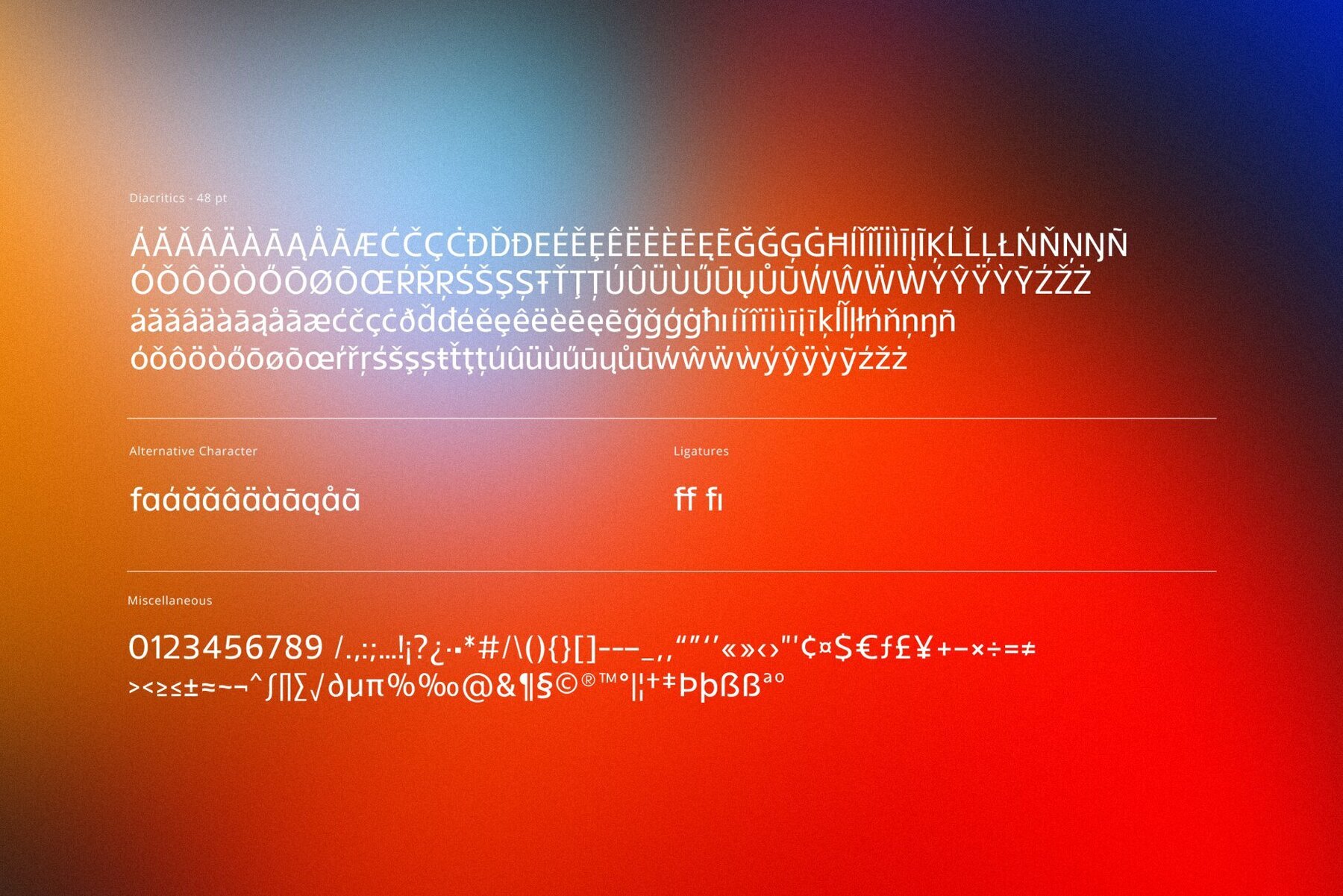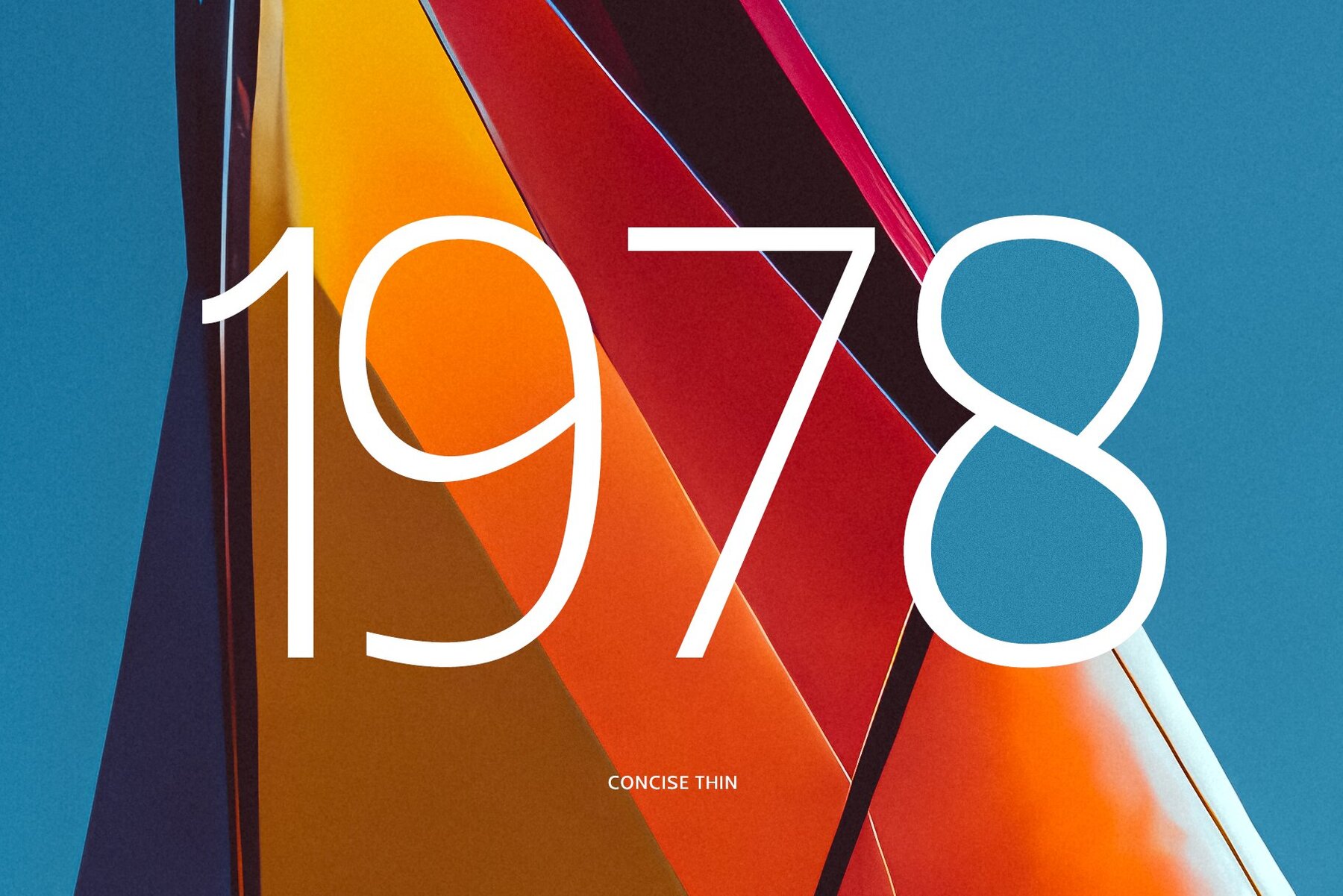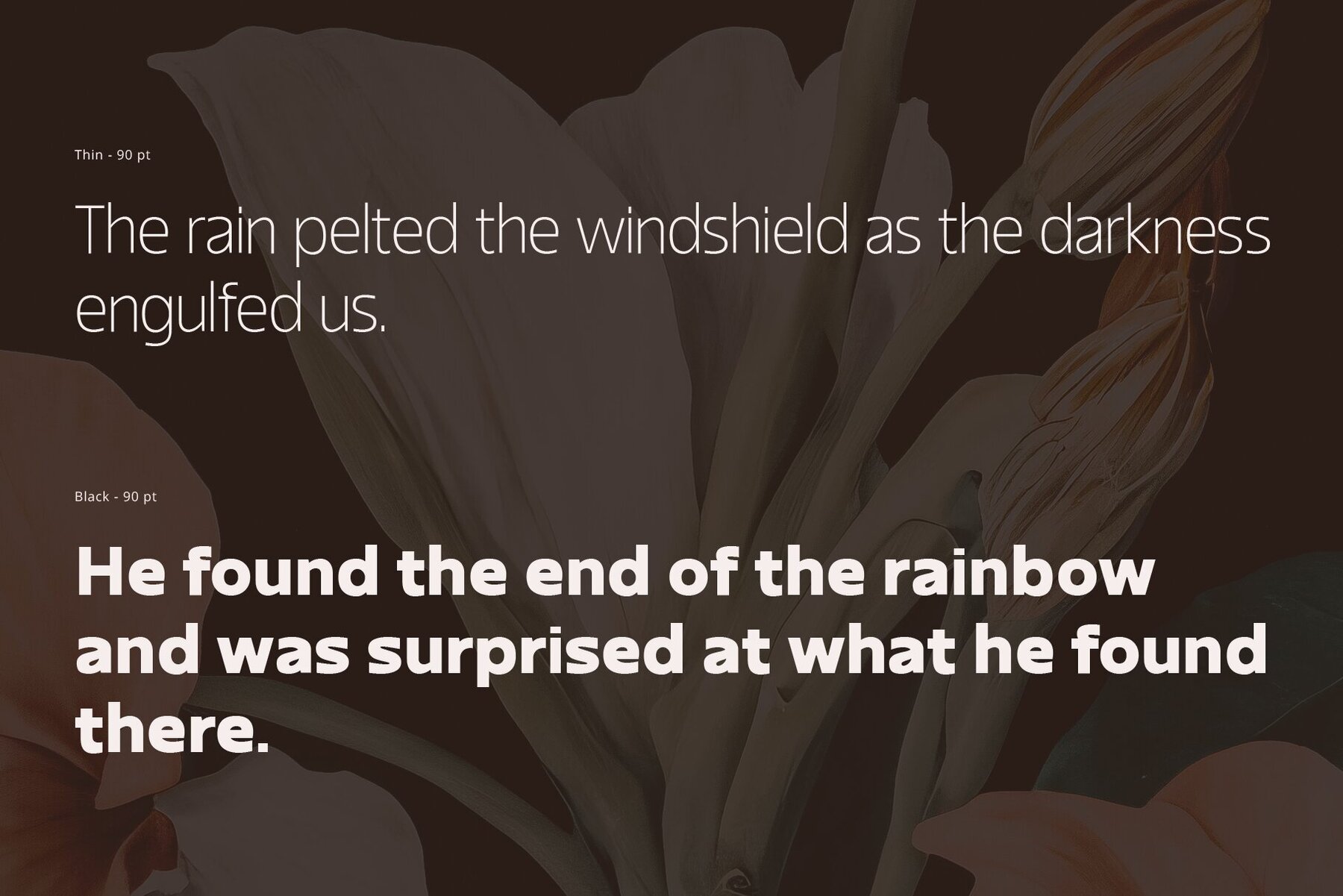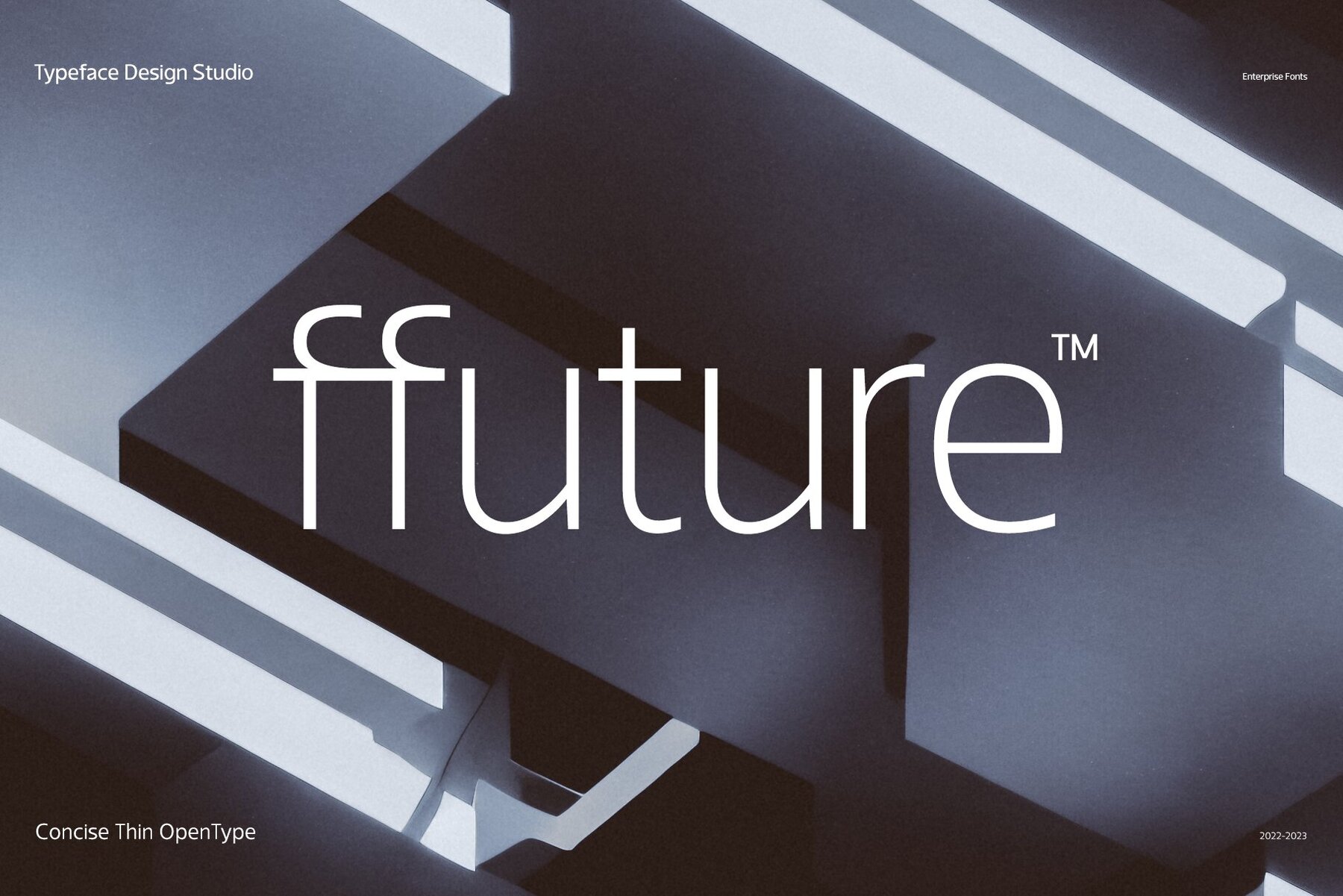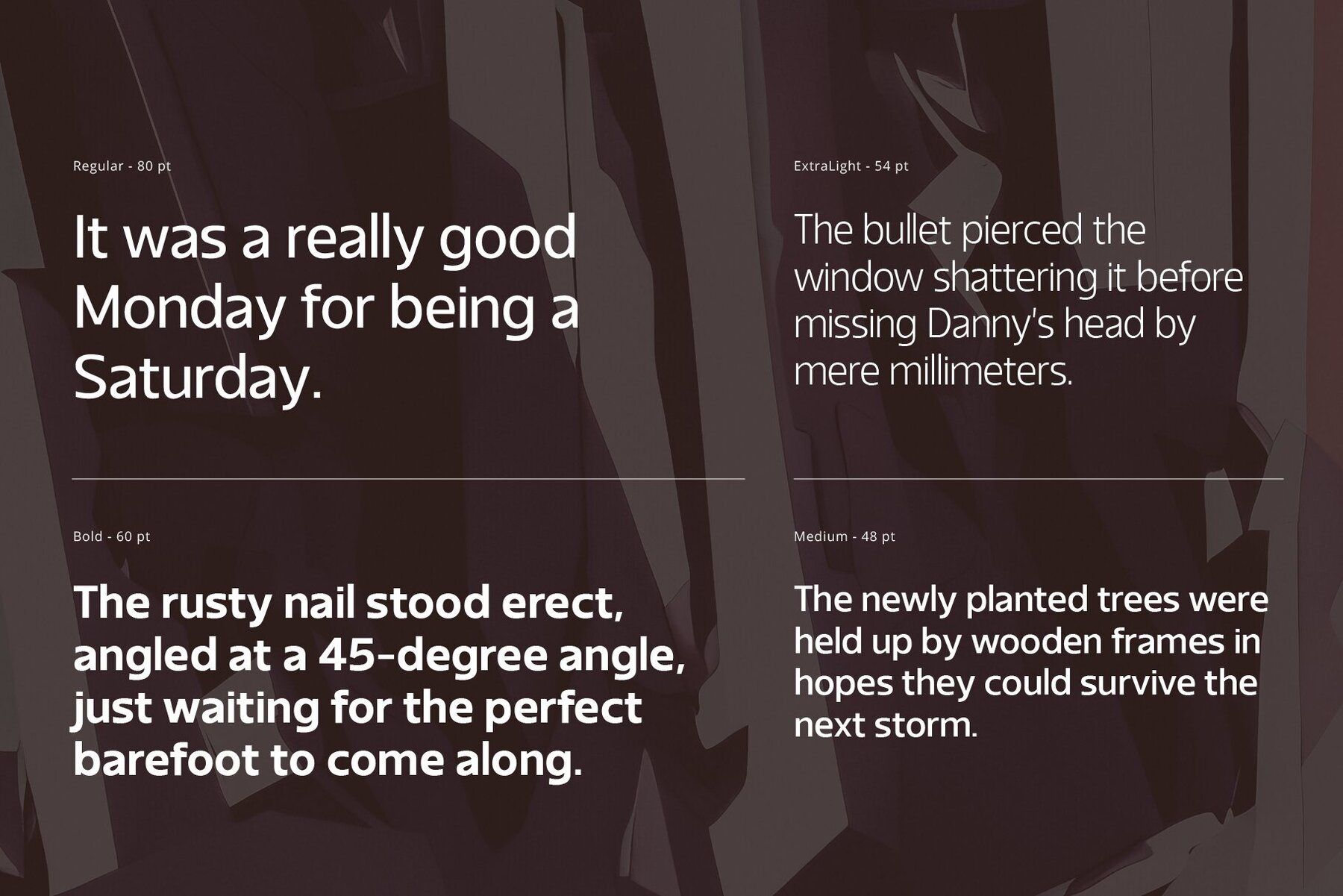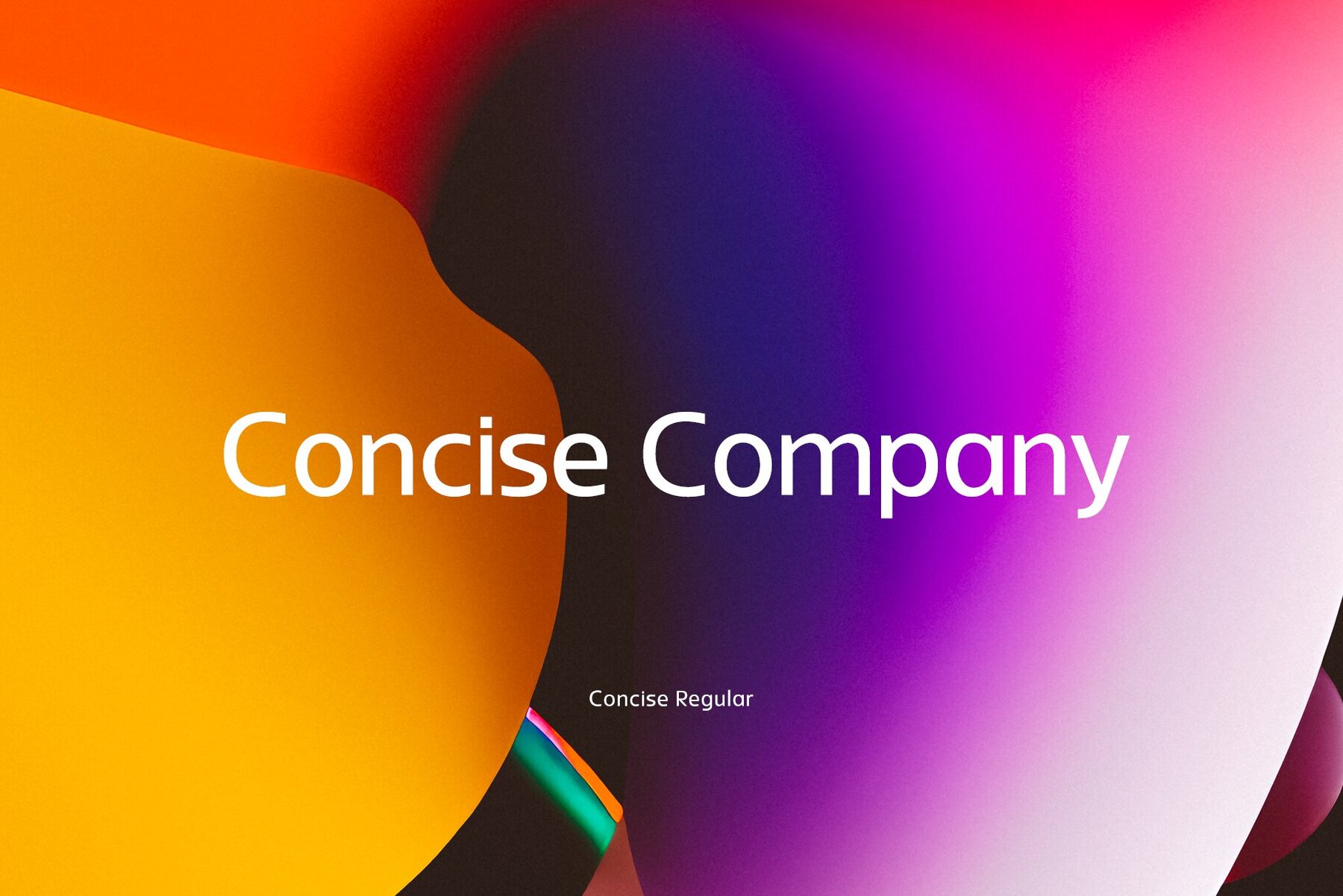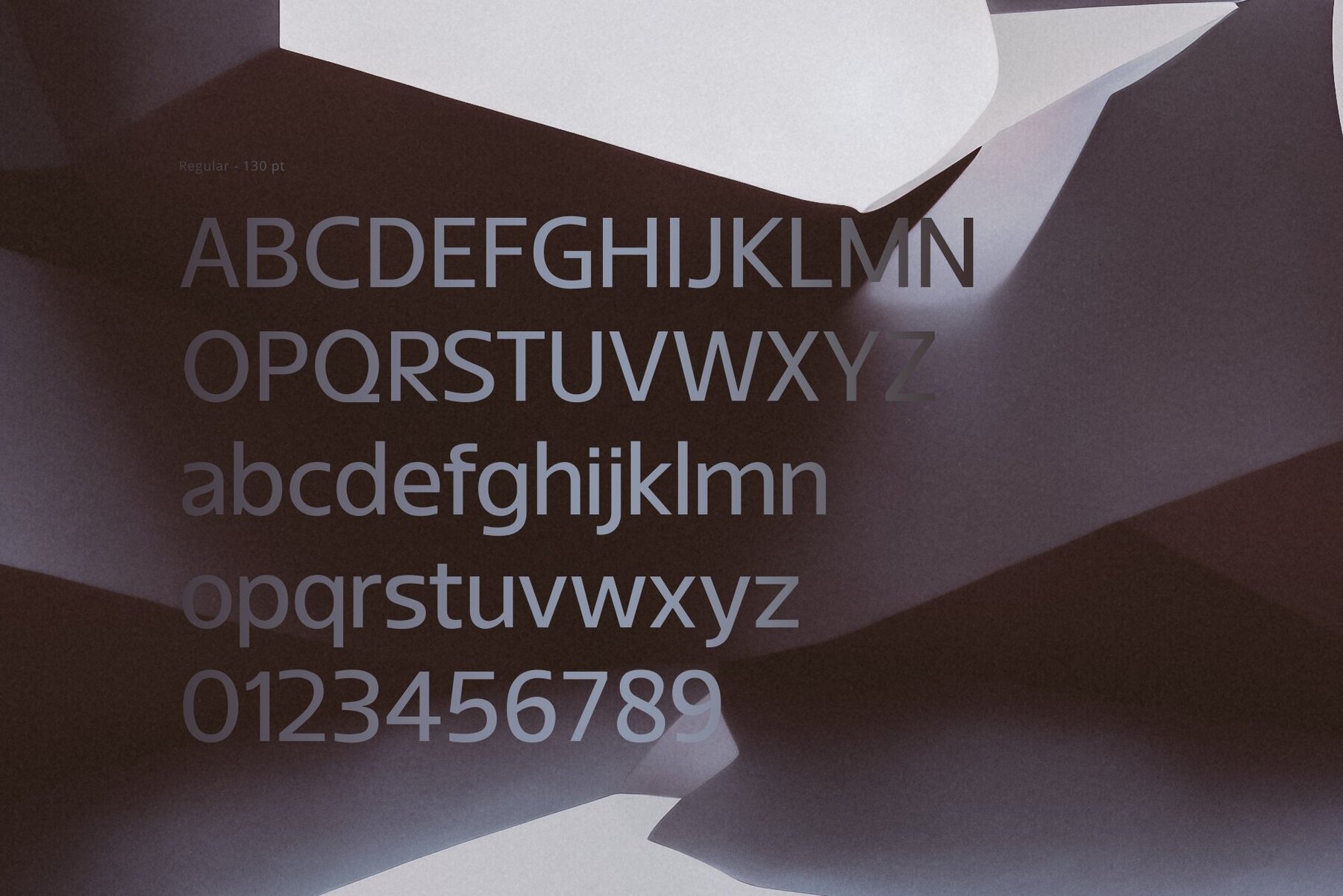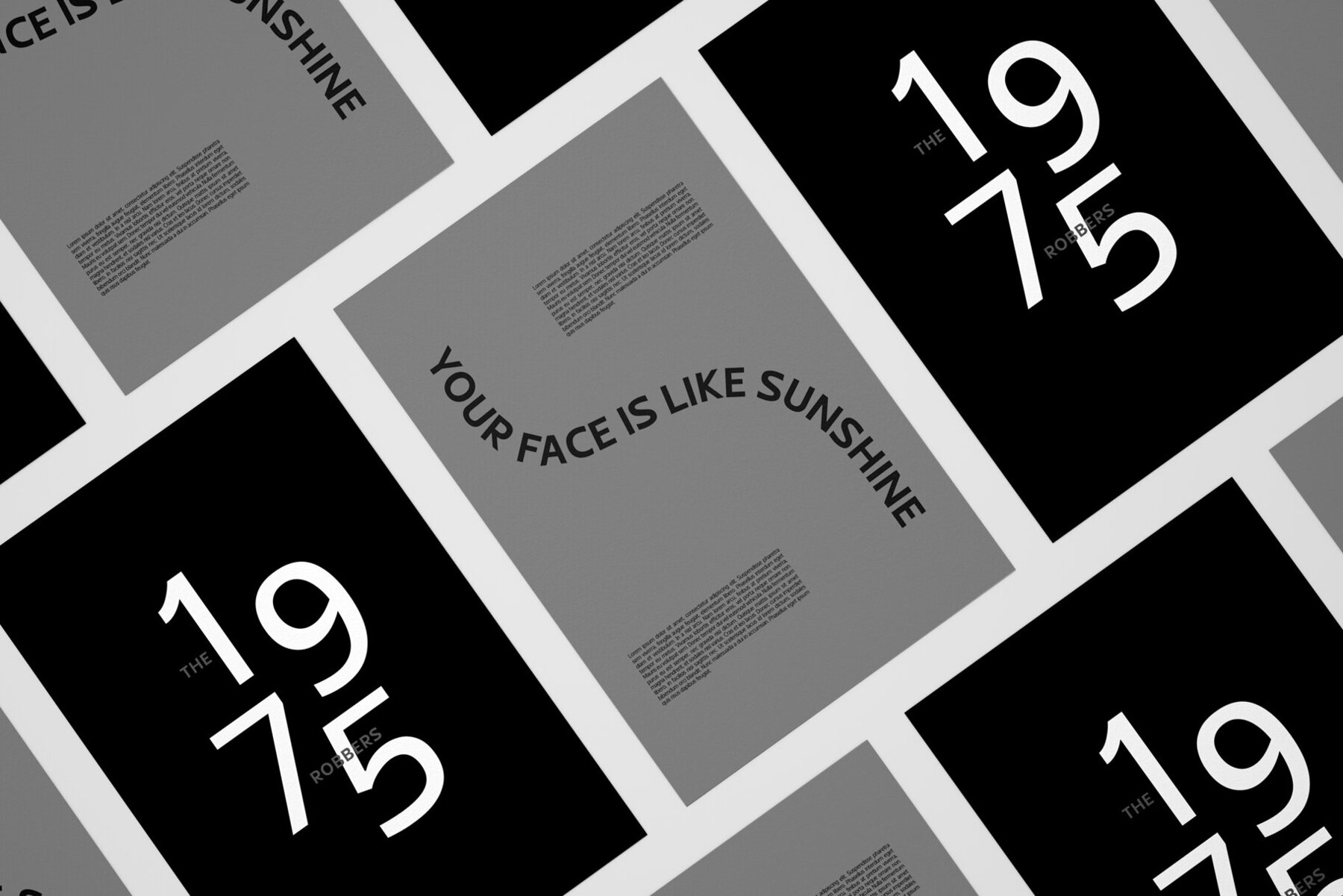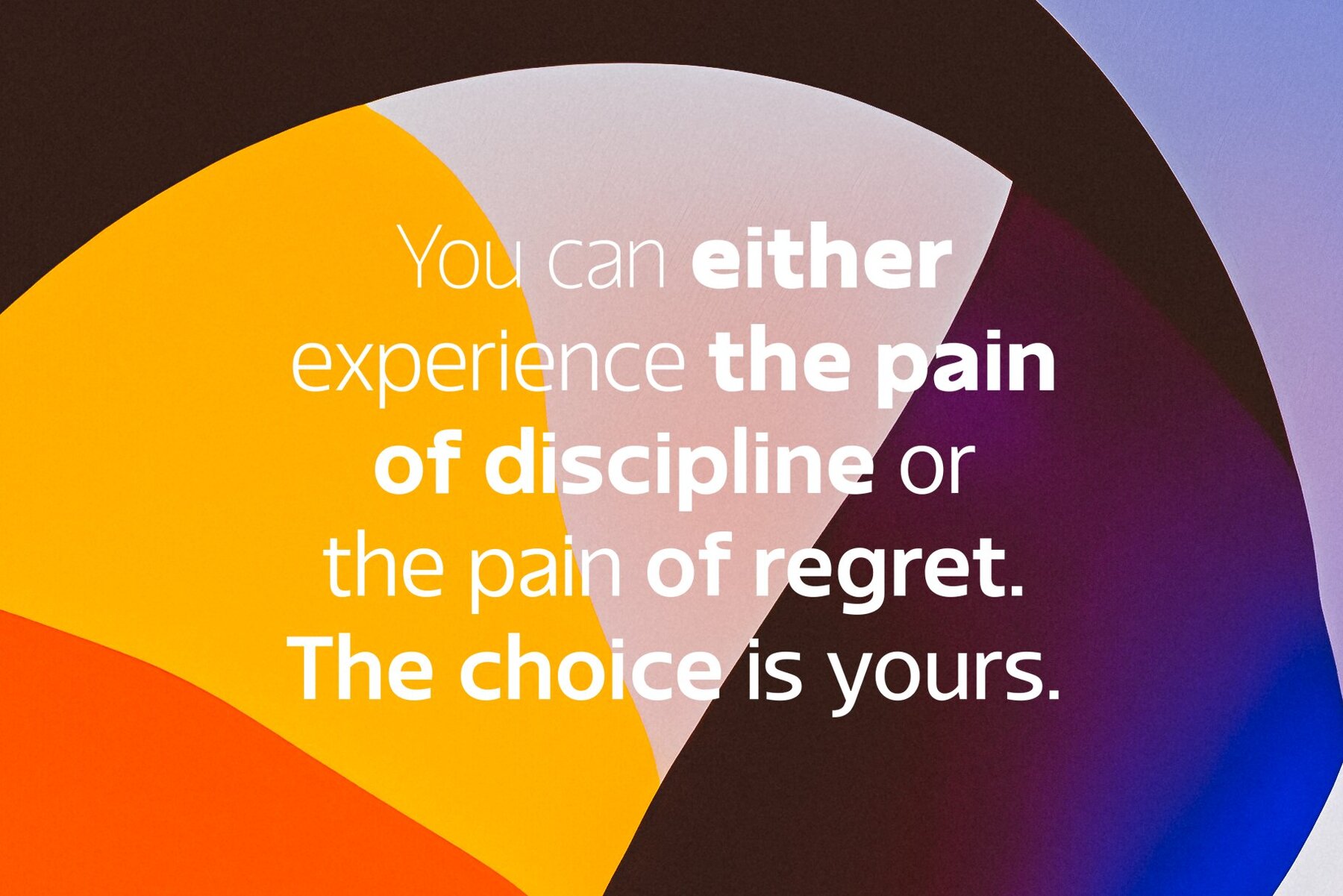
Concise Font
Concise is a modern font family created by the Typeface Design Studio for design studios seeking a sleek typeface for logo and trademark development. With nine font weights that range from Thin to Black, Concise provides font users with an excellent range of bold and contemporary font options to choose from.
This font is suitable for a wide variety of branding, trademark, marketing and copyright applications, making it perfect for digital design projects such as logos, posters, books, apparel, card designs and social media designs. Concise's ease of combination makes it easy to use in a variety of creative projects and its versatility ensures anything you create looks sharp and professional.